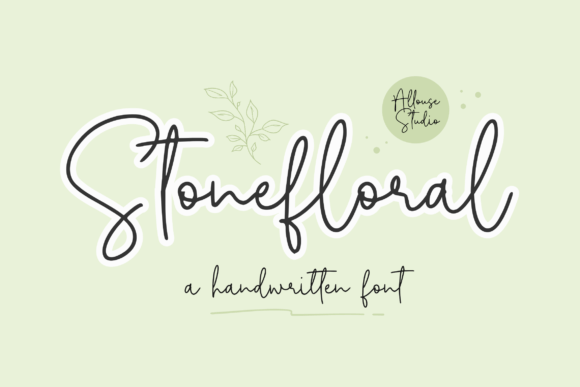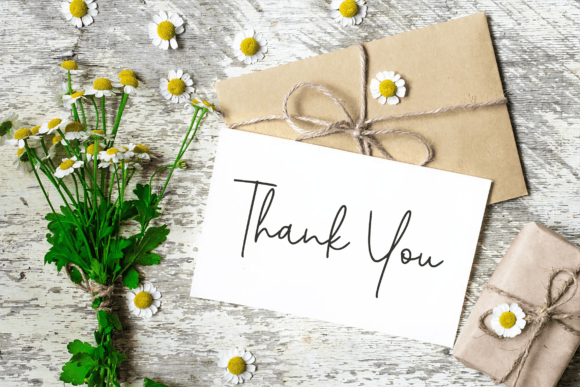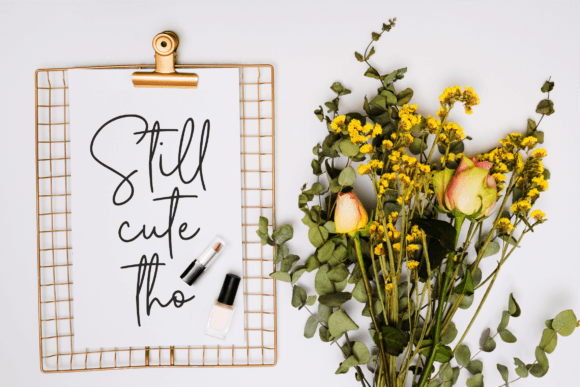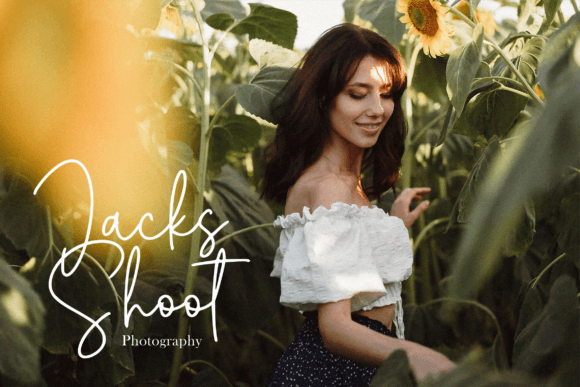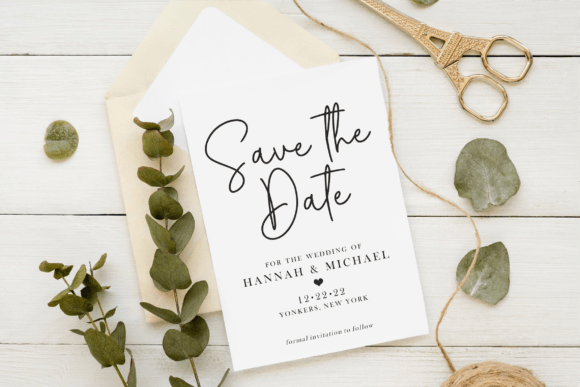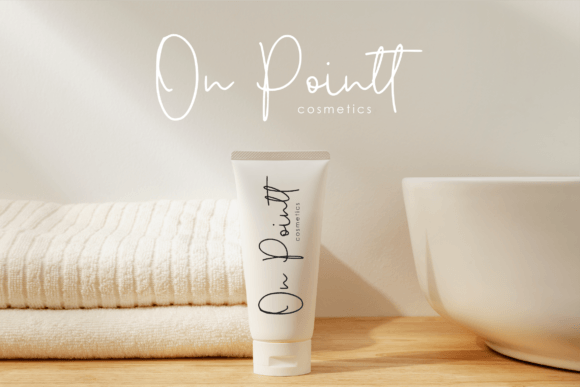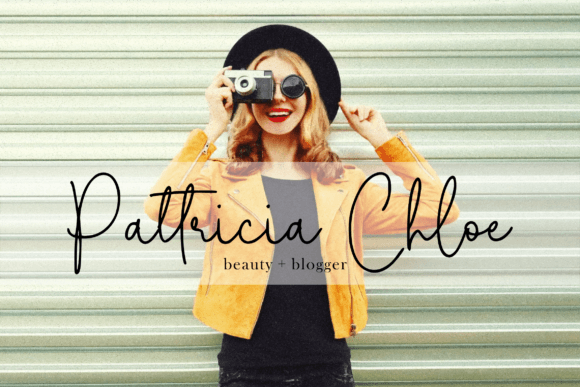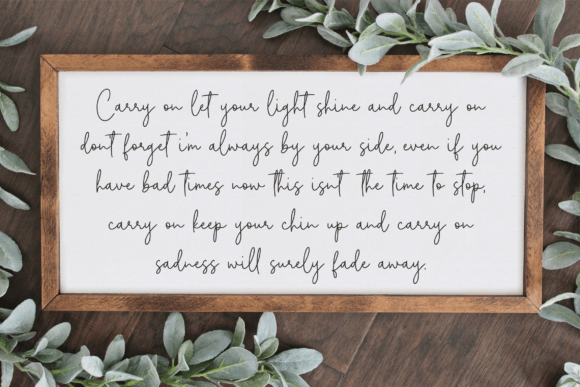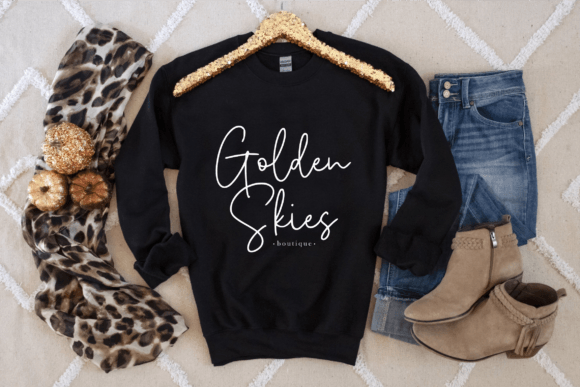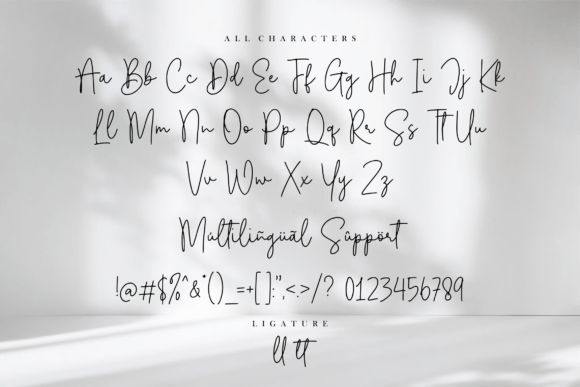
Stonefloral Font
Add Elegant Style with Stonefloral Font
The Stonefloral font is an elegant handwritten script designed to bring charm and sophistication to your creative projects. Ideal for product packaging, branding campaigns, magazine layouts, social media content, weddings, and expressive typography, Stonefloral adds a unique and artistic touch to your designs.
Perfect for Packaging, Branding, and Weddings
The Stonefloral font excels across a variety of applications including product packaging, brand identity projects, editorial designs, wedding invitations, and social media graphics. Its flowing handwritten style helps your work convey authenticity and elegance.
A Handwritten Script with Versatile Usage
Each character in the Stonefloral font is carefully crafted to deliver smooth, readable strokes that stand out beautifully over backgrounds. This font balances decorative flair with clarity, making it suitable for headlines, logos, and text overlays.
Despite its handwritten and decorative nature, the Stonefloral font maintains excellent readability across various sizes. Whether used for large titles or smaller text elements, it balances elegance with clarity, making it a versatile choice for many creative projects.
Make Your Designs Stand Out with Artistic Flair